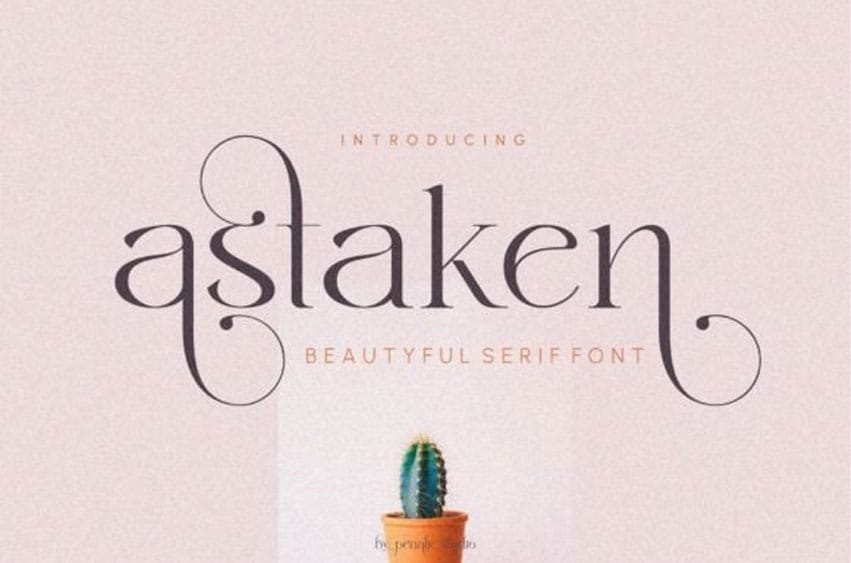
Astaken Font is an elegant and stylish serif font. Fall in love with its incredibly versatile style and use it to create gorgeous wedding invitations, beautiful stationery art, eye-catching social media posts, and much more!